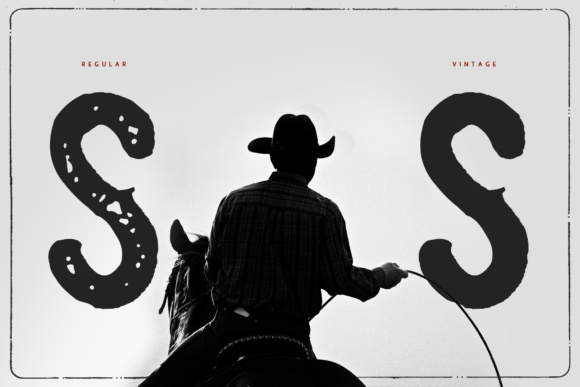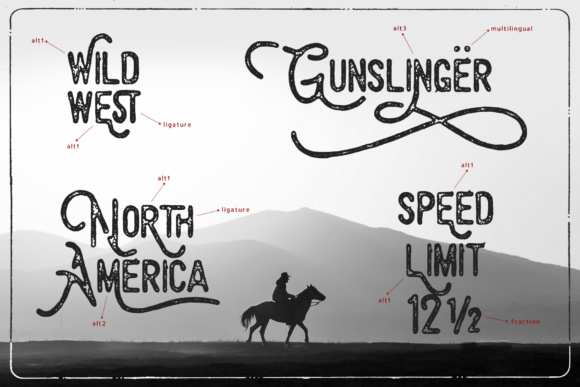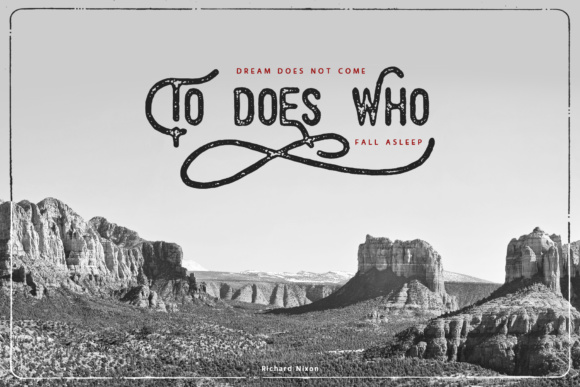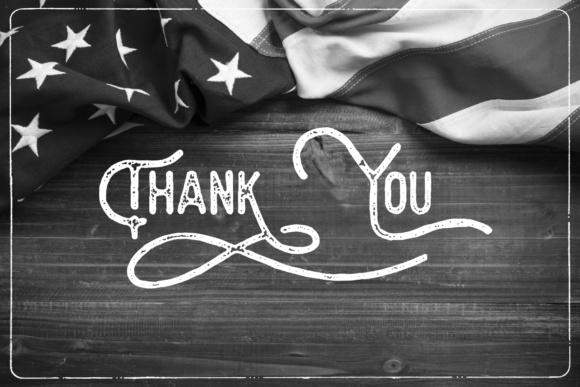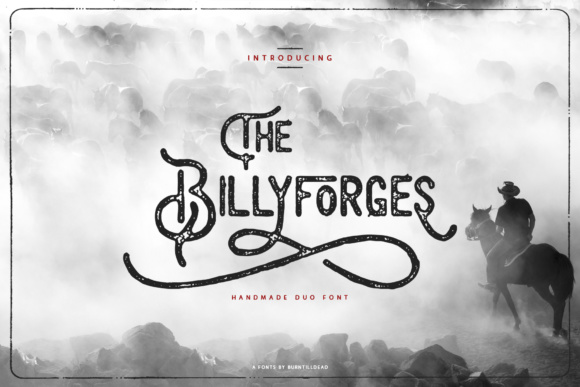
Billyforges Font: Elevate Your Designs with a Classic Western Vibe
Are you looking for a font that can add a touch of classic western charm to your projects? Look no further than Billyforges Font, a gorgeous handmade font duo that is perfect for designers and crafters who want to give their work an Americana feel. With its vintage yet stylish appeal, Billyforges Font is sure to elevate your designs and make them stand out.
What is Billyforges Font?
Billyforges Font is a font duo that consists of two complementary fonts that work together to create a unique and stylish look. The font is designed to resemble classic western typography, with bold lines, rugged edges, and a charming handmade feel. The font duo includes a bold font with a rough, distressed texture and a clean font with a smooth finish, allowing you to mix and match the two to create a look that’s all your own.
Key Features of Billyforges Font
- Handmade with love: Billyforges Font is crafted with care and attention to detail, giving it a unique and authentic feel.
- Classic western vibe: The font has a distinctly western feel, with bold lines and rugged edges that evoke the spirit of the American Wild West.
- Americana feel: Billyforges Font is perfect for projects that require an Americana feel, such as branding, packaging, and advertising.
- Vintage yet stylish: The font has a timeless quality that makes it perfect for both vintage and modern designs.
- Font duo: The font comes in two complementary styles, allowing you to mix and match to create a look that’s all your own.
Uses for Billyforges Font
Billyforges Font is a versatile font that can be used in a variety of projects, including:
- Branding and logos: The font’s bold, rugged edges make it perfect for creating logos and branding materials that need to stand out.
- Packaging and labels: Billyforges Font is great for creating labels and packaging that need a classic, western feel.
- Advertising and marketing: The font’s vintage yet stylish appeal makes it perfect for use in advertising and marketing materials.
- Signage and display: Billyforges Font is great for creating eye-catching signage and display materials that need to make a statement.
- Digital and print media: The font can be used in both digital and print media, including social media graphics, brochures, and flyers.
Tips for Using Billyforges Font
Here are a few tips for getting the most out of Billyforges Font:
- Mix and match: Experiment with combining the bold and clean fonts to create a look that’s all your own.
- Play with texture: The font’s distressed texture can add a lot of character to your designs, but don’t be afraid to experiment with different textures and effects.
- Keep it simple: Billyforges Font is a bold font, so don’t be afraid to keep your designs simple and let the font do the talking.
Billyforges Font is a unique and stylish font duo that is perfect for designers and crafters who want to add a touch of classic western charm to their projects. With its handmade feel, vintage yet stylish appeal, and versatility, Billyforges Font is sure to elevate your designs and make them stand out. Whether you’re creating branding materials, packaging, or advertising, Billyforges Font is a great choice.